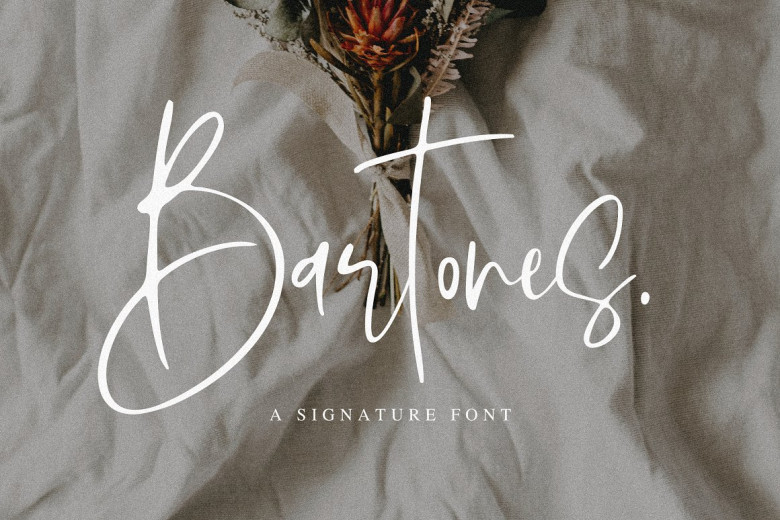
Bartones Font
Bartones Font is a handcrafted script font designed to give off a modern and feminine vibe. Ideal for branding materials such as posters, business cards, tee-shirts photography or quotes.
Bartones Handwritten Font